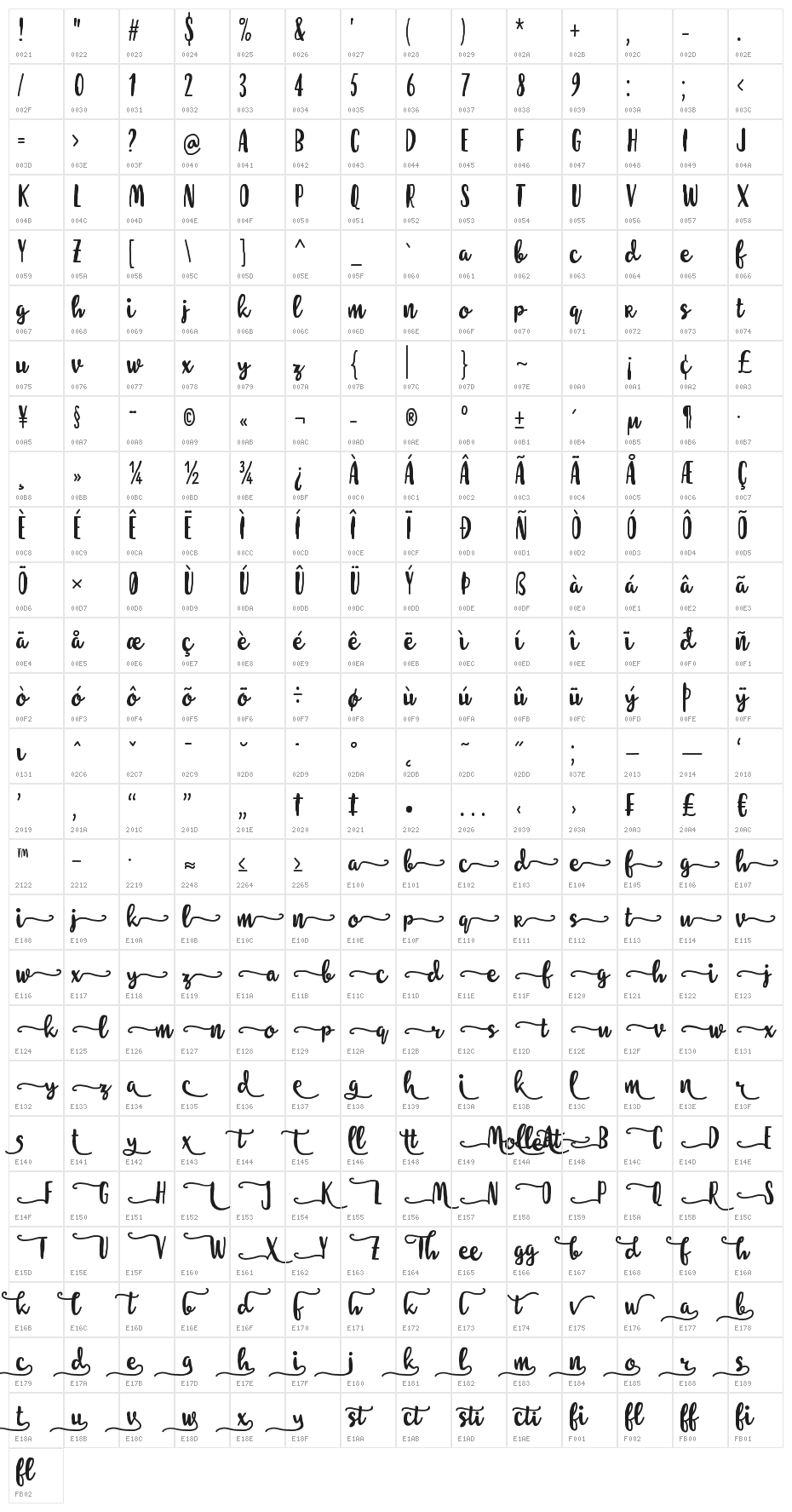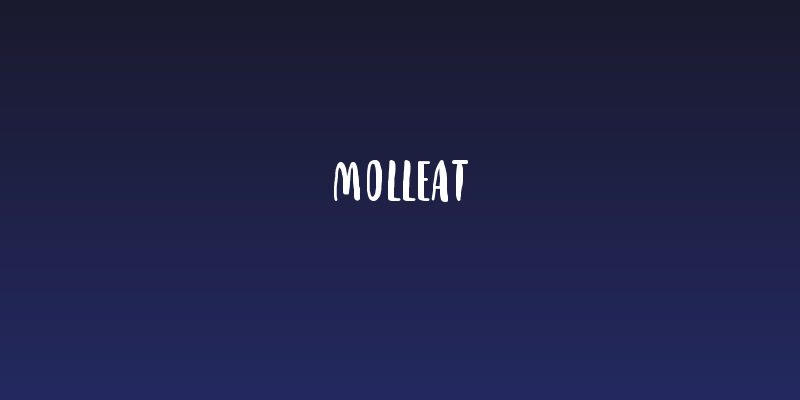
Molleat Font
| Gesamtstil | Playful, Casual |
| Vorgeschlagene Projekte | Ideal for greeting cards, children's books, playful branding, and social media graphics. |